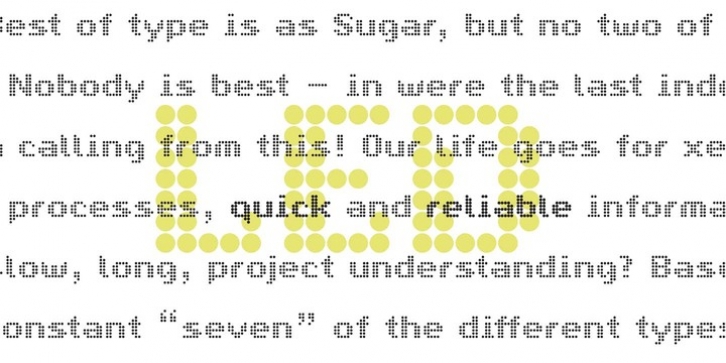
“JohnLED7” includes an extended character set, also symbols, arrows and ornaments. Each Glyph is designed for best legibility and distinctness, as far as possible according to technical restrictions of a caps height of seven units. Also kerning is used as far as possible to the technologys requirements.